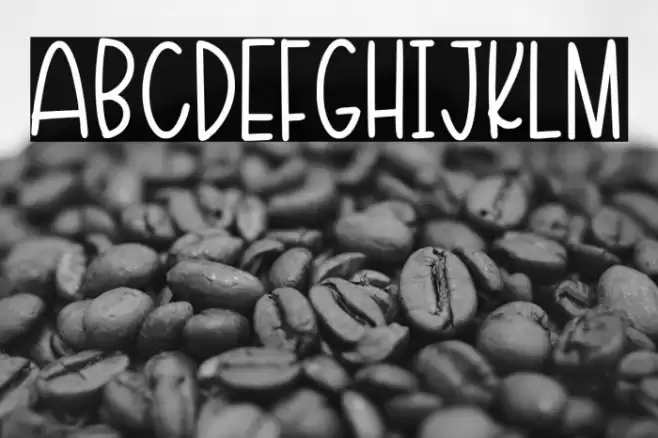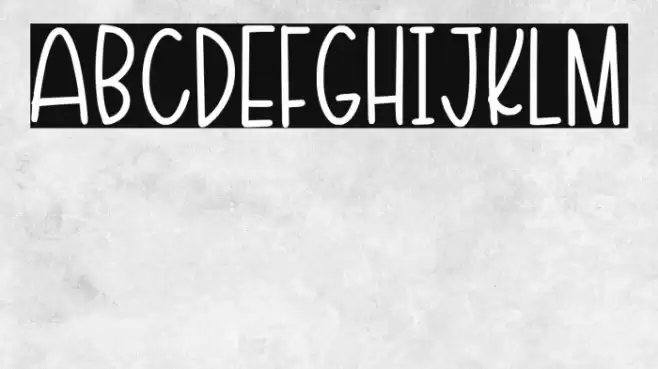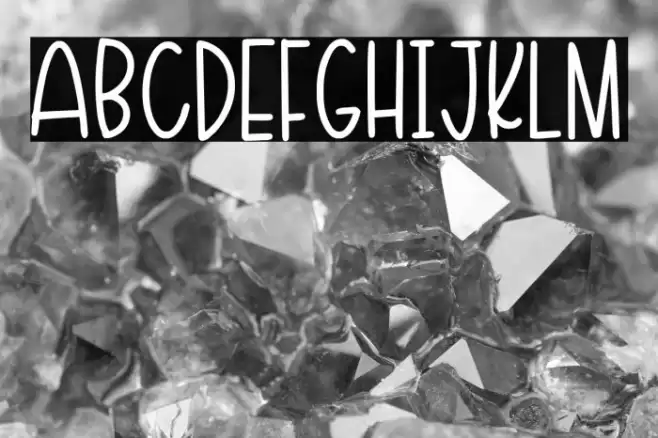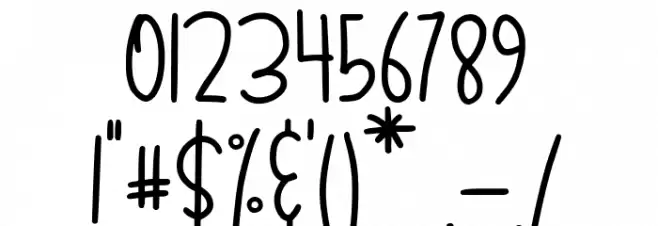
Kitty Sweet Font
Kitty Sweet Description
This playful and whimsical font features a handwritten style with a casual and friendly appearance. The letters are slightly elongated with a consistent stroke width, giving it a uniform yet lively look. The uppercase and lowercase characters maintain a cohesive style, with rounded edges and a slight tilt that adds to its charm. The numbers and special characters are designed to match the overall aesthetic, making it versatile for various uses. Its informal and approachable nature makes it ideal for projects that require a personal touch.
A playful handwritten font with a casual and friendly style from Uncategorized fonts.
- Font: Kitty Sweet
- Proposed Projects: Ideal for greeting cards, children's books, playful branding, and social media graphics.
- Overall Style: Casual and playful
- Use Case: Headlines, Logos, Informal text